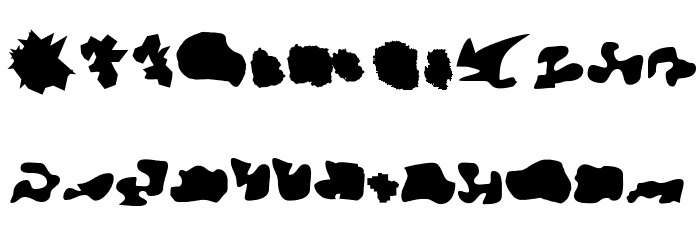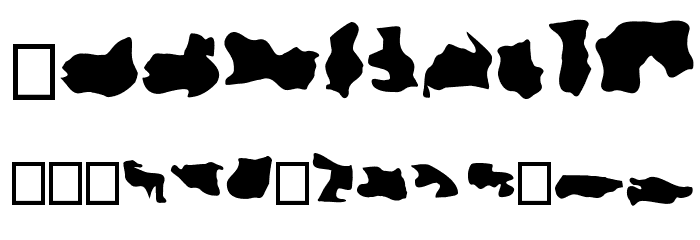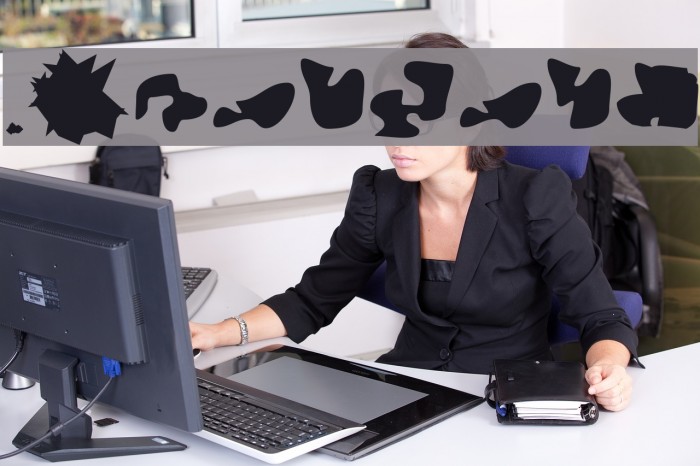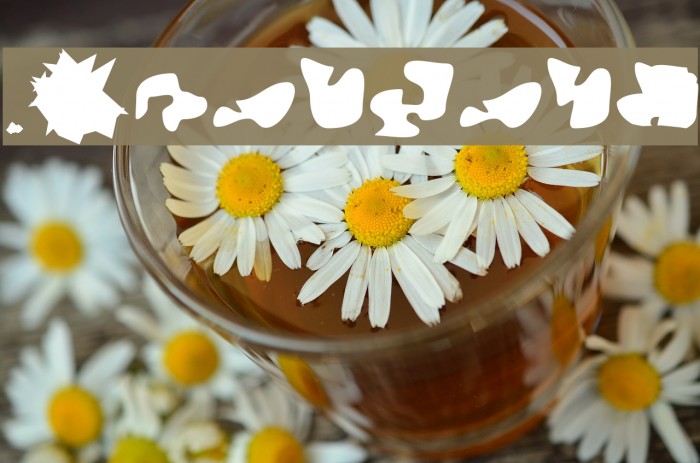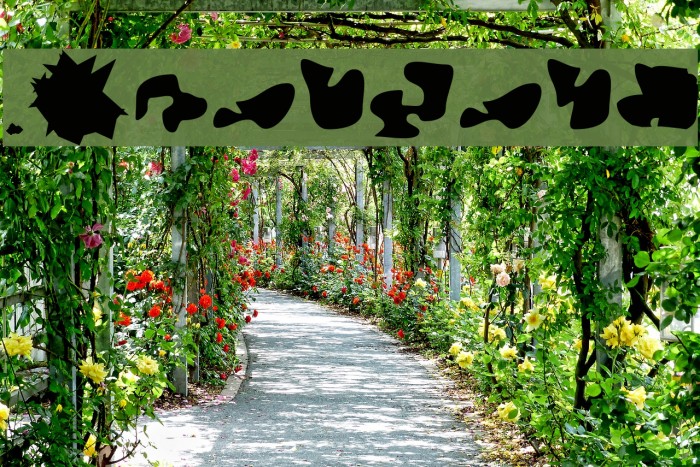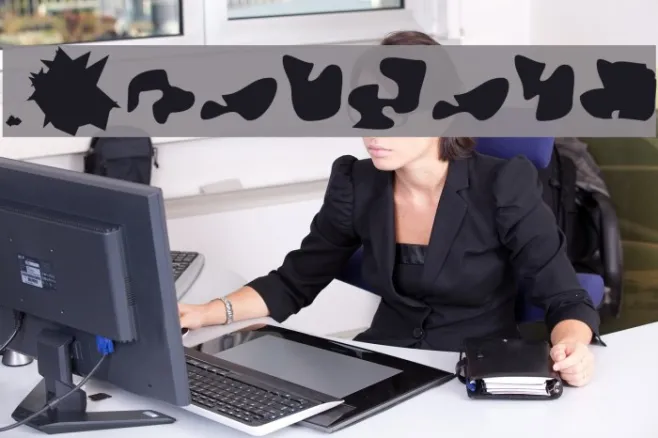
Camosport Font
This font features a highly abstract and decorative style, with characters that resemble organic, camouflaged shapes. The letters are bold and irregular, creating a sense of movement and fluidity. Each character is unique, with varying thickness and form, giving the font a dynamic and artistic appearance. The overall look is reminiscent of natural textures, making it suitable for creative and unconventional design projects. The font's distinctive style may challenge readability in smaller sizes, but it excels in making a bold visual statement.
An abstract, decorative font with organic, camouflaged shapes.
- Proposed Projects: Ideal for artistic posters, album covers, and creative branding projects.
- Character Spacing: Wide
- Use Case: Logos, Posters, Artistic Designs